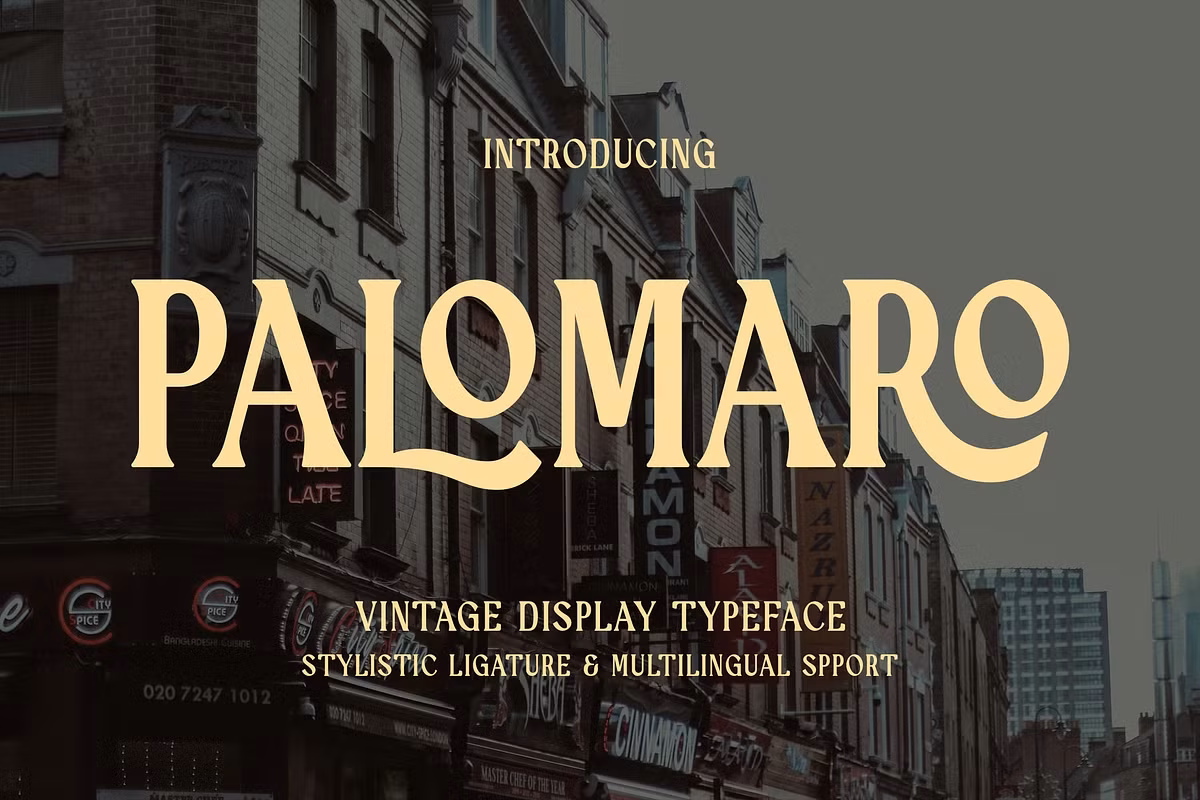
Step into a world of timeless elegance with Palomaro Vintage Font Free Download — a beautifully crafted typeface that combines classic vintage charm with modern sophistication. With its sharp serifs, strong contrast, and unique character, this font is perfect for branding, logos, editorial design, retro-themed posters, and high-end packaging.
Palomaro brings the grandeur of old-fashioned typography into the present, offering a bold yet refined aesthetic that is perfect for projects that require a touch of nostalgia. It includes uppercase and lowercase letters, punctuation, numerals, and multilingual support — giving you all the flexibility you need for your creative projects.